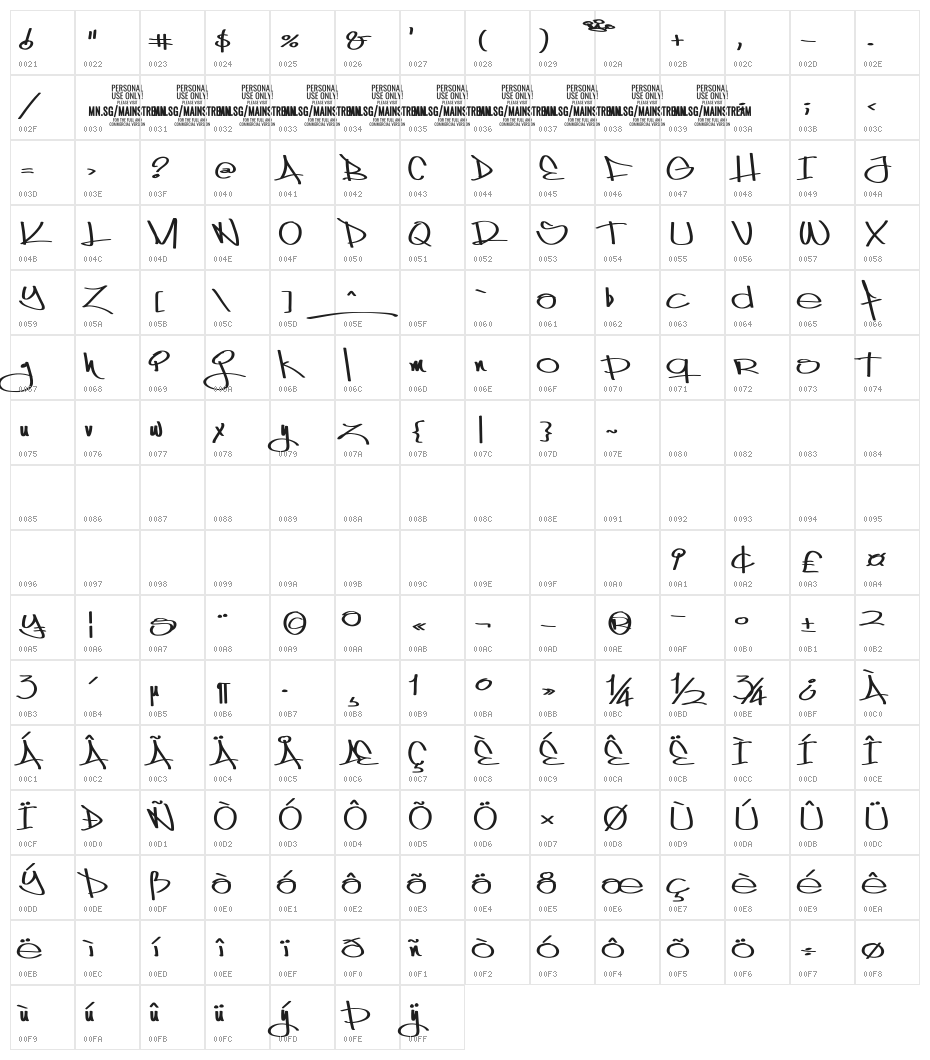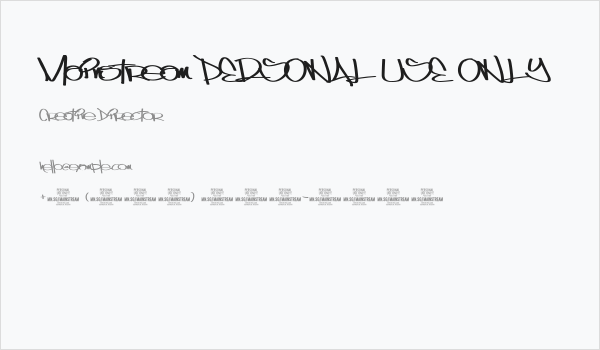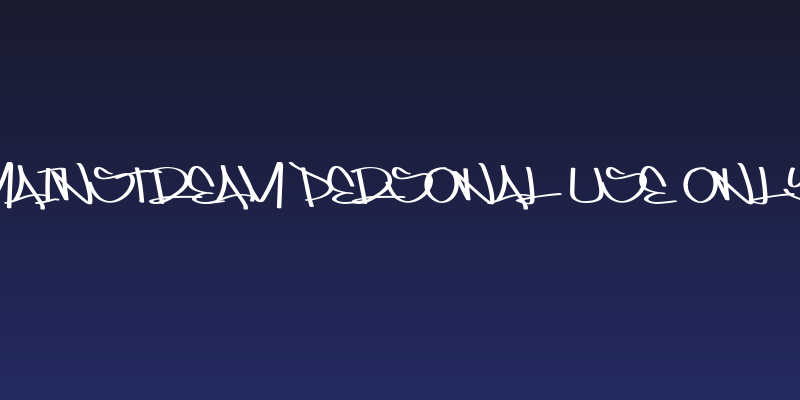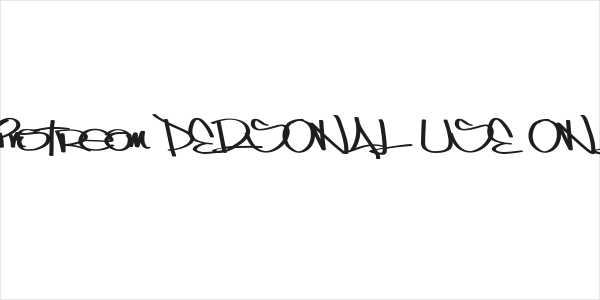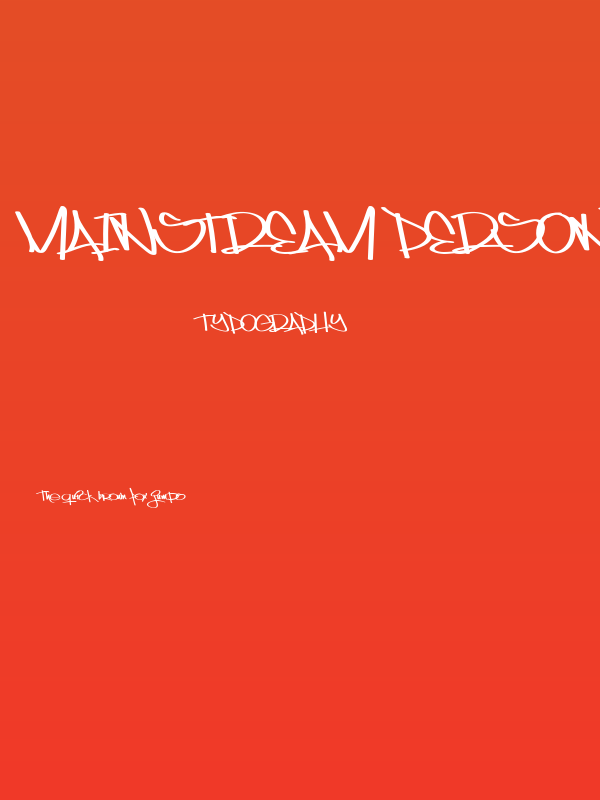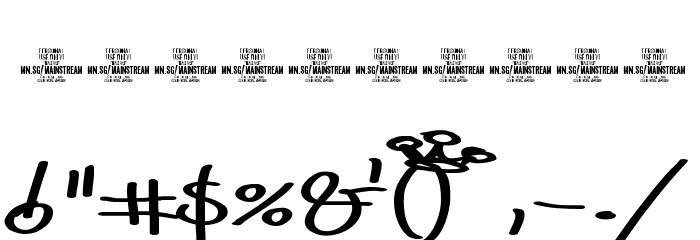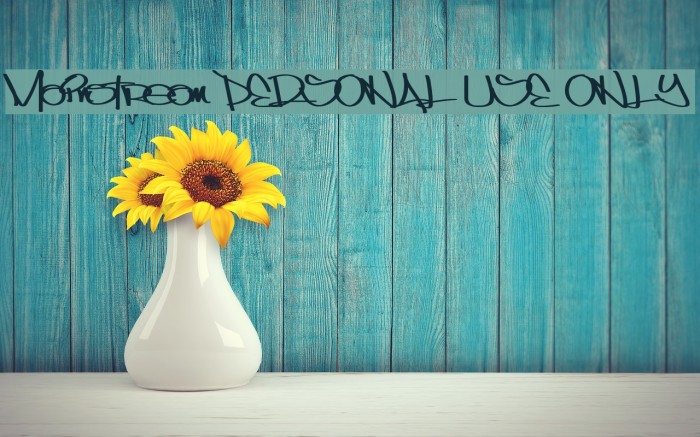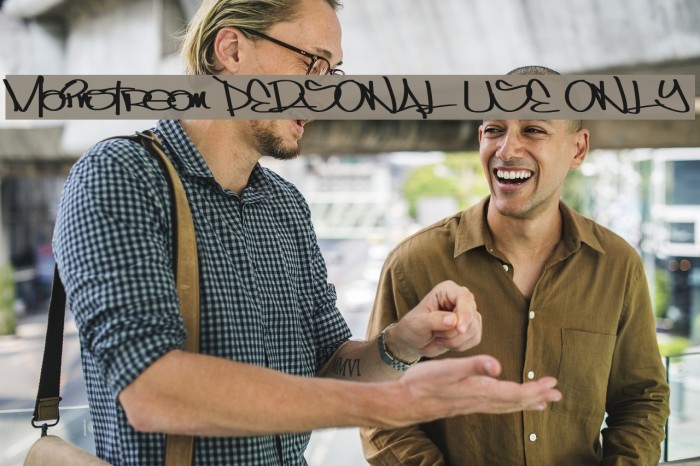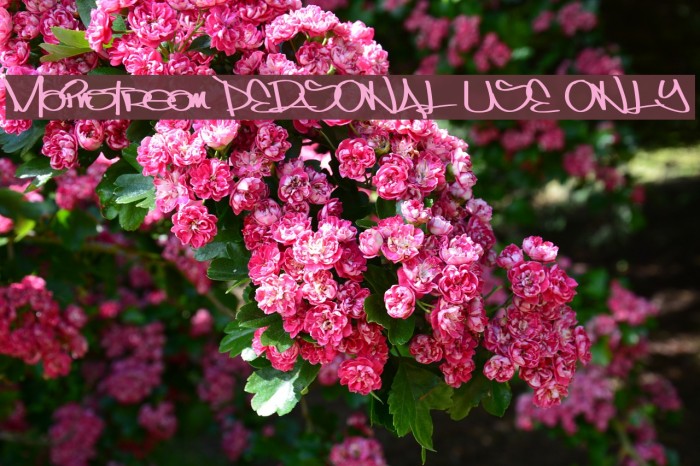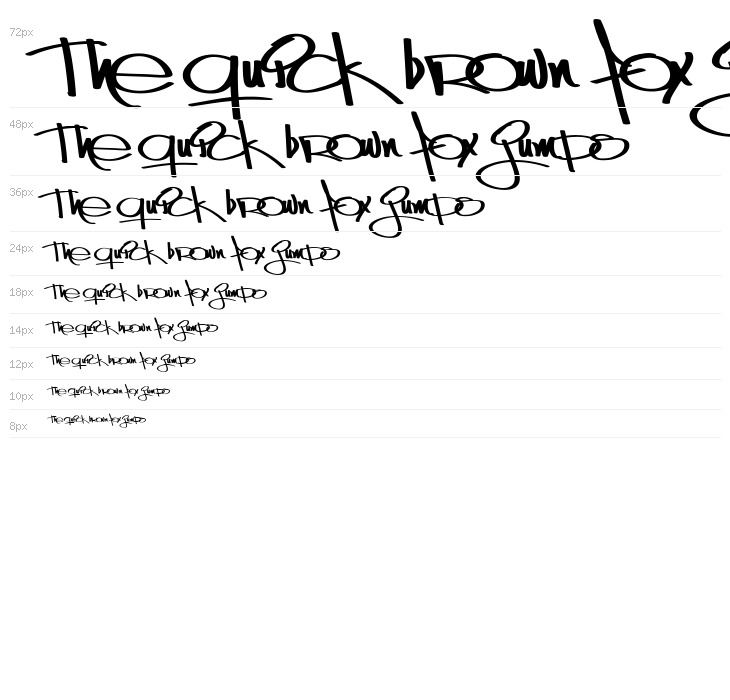
Mainstream PERSONAL USE ONLY Font
Mainstream PERSONAL USE ONLY Description
This font features a bold, graffiti-inspired style with a dynamic and energetic appearance. The letters are characterized by their exaggerated curves and sharp angles, creating a sense of movement and fluidity. The uppercase and lowercase letters maintain a consistent style, with a playful and rebellious aesthetic. The numbers and special characters are equally expressive, adding to the overall urban and edgy feel of the font. This design is perfect for projects that aim to capture a street art vibe or a youthful, unconventional look.
| Overall Style | Urban, Graffiti, Energetic |
| Use Case | Logos, Posters, Album Covers |
| Proposed Projects | Ideal for street art designs, urban-themed posters, music album covers, and edgy branding projects. |